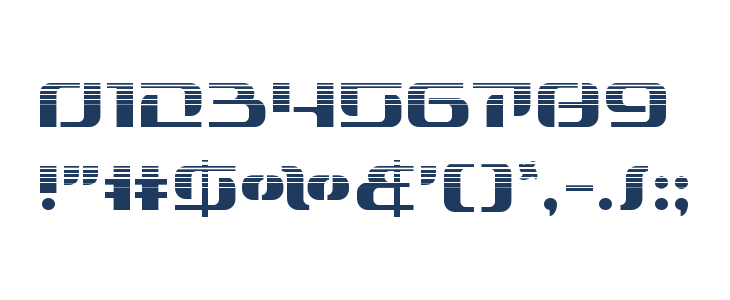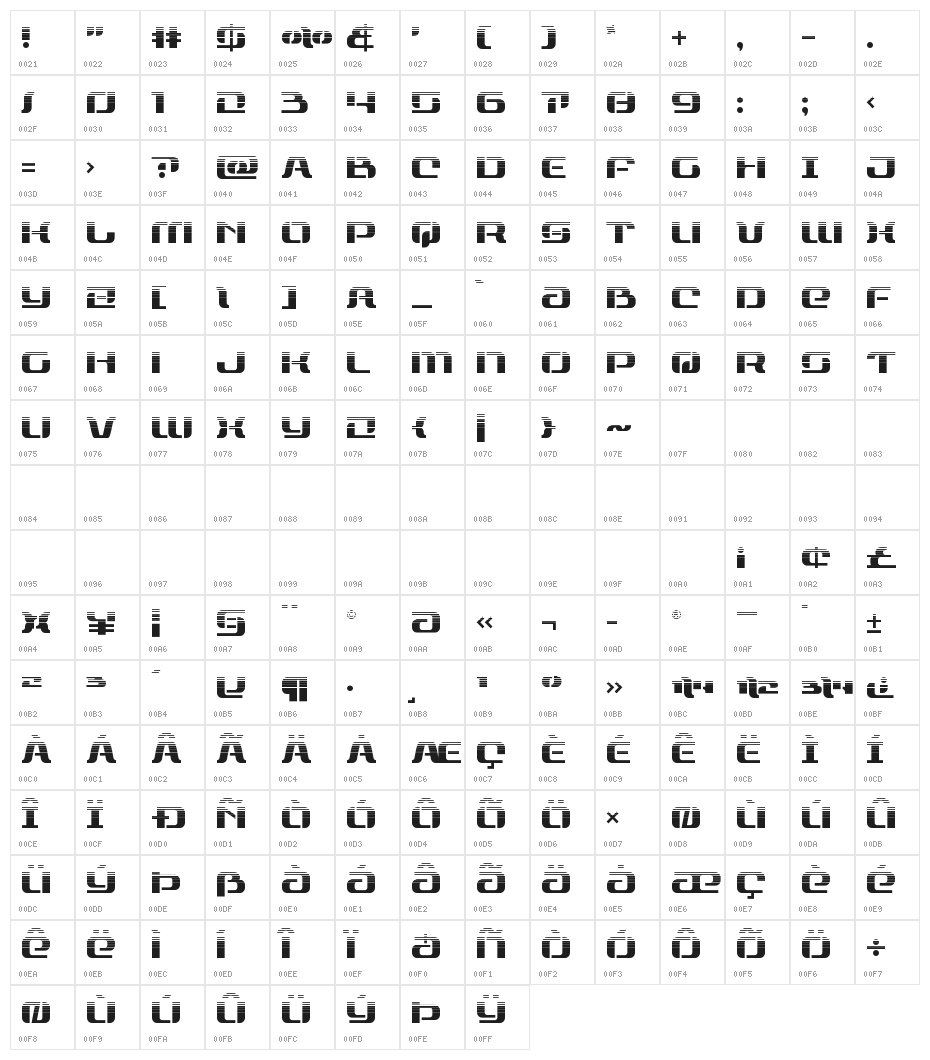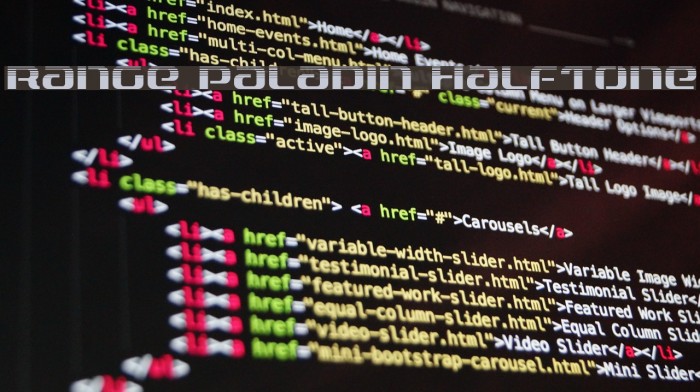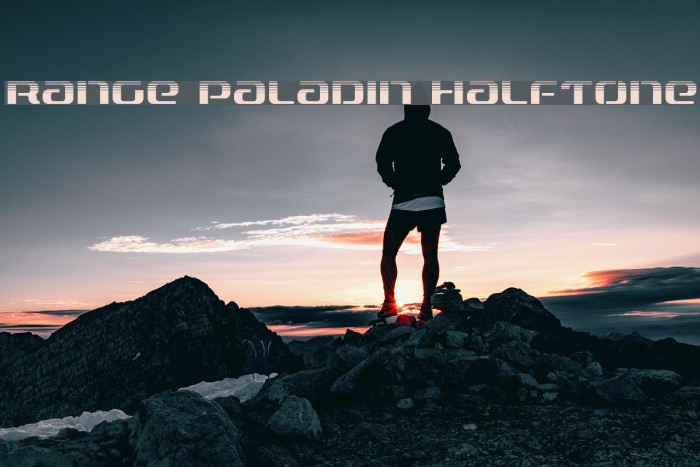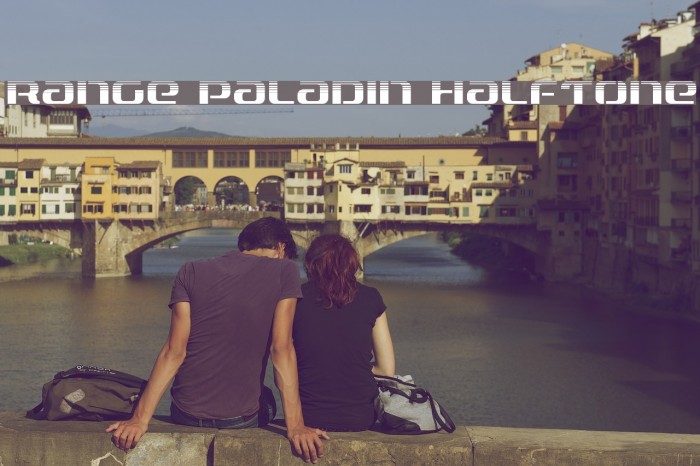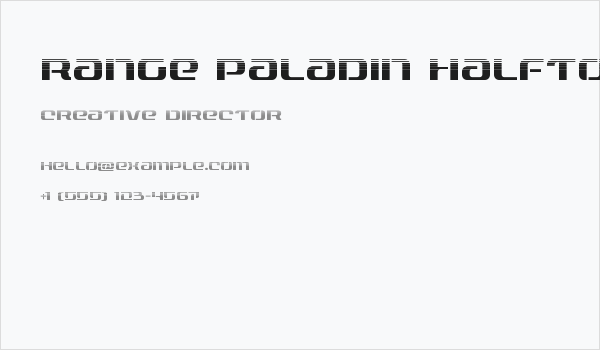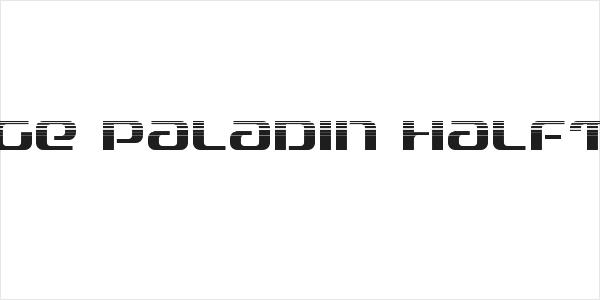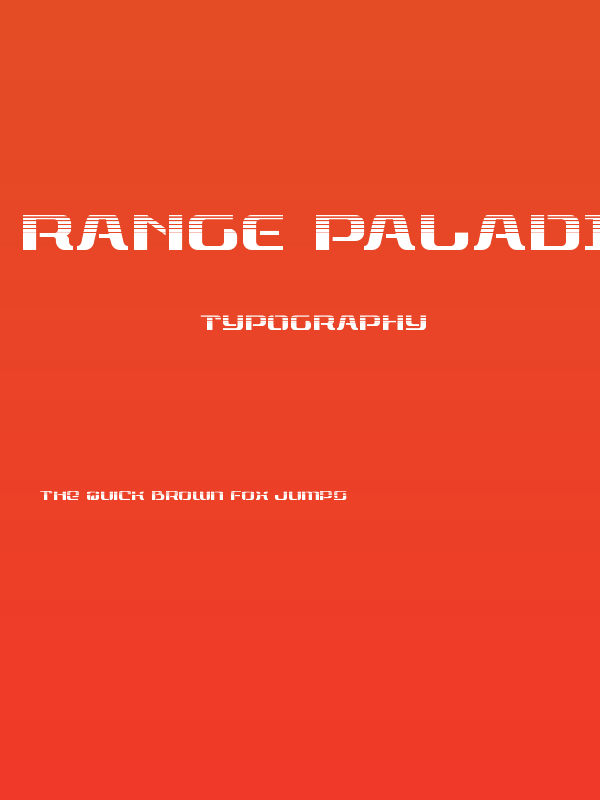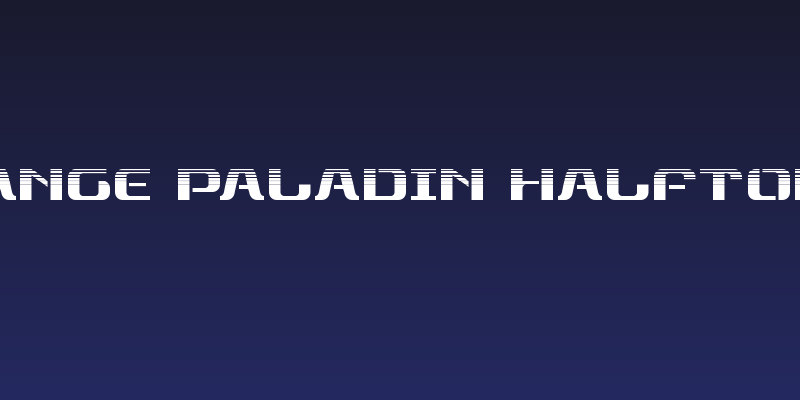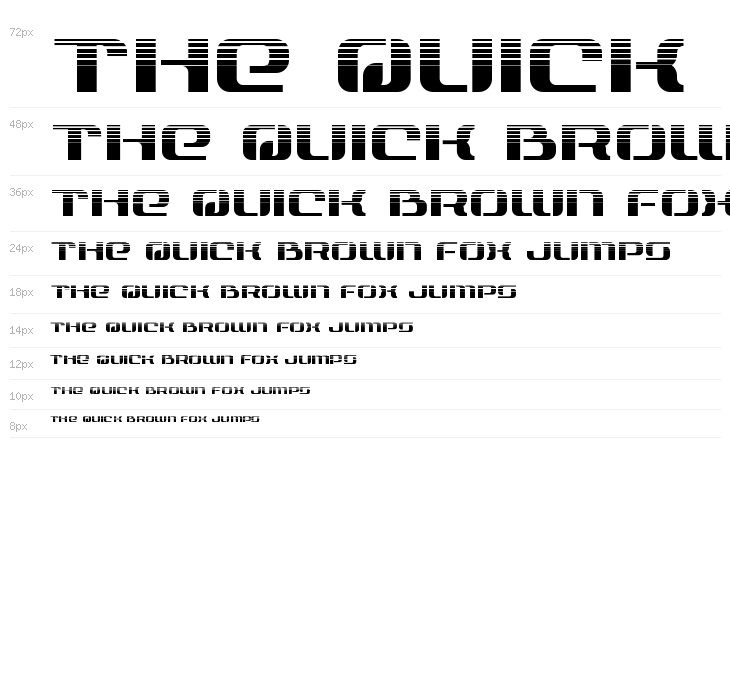
Range Paladin Halftone Font
Range Paladin Halftone Description
This font features a bold, futuristic design with a halftone effect that gives it a unique, digital appearance. The characters are constructed with a series of horizontal lines that create a sense of movement and energy. The uppercase and lowercase letters maintain a consistent style, with sharp angles and a geometric structure. The numbers and special characters follow the same design principles, ensuring a cohesive look across all elements. This font is ideal for projects that require a modern, tech-inspired aesthetic.